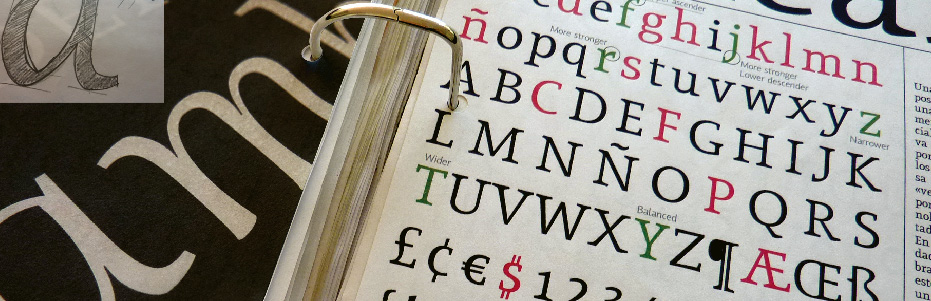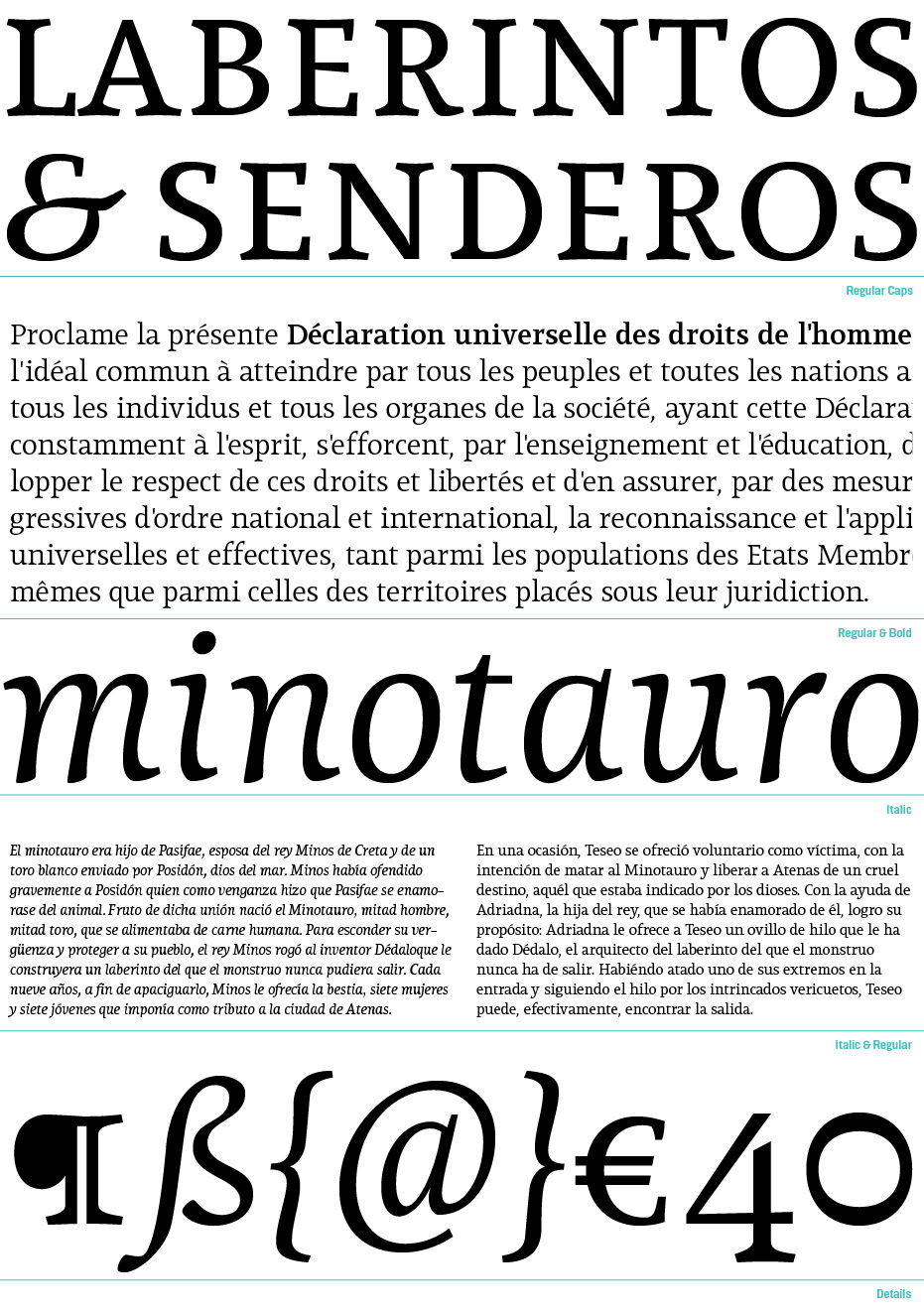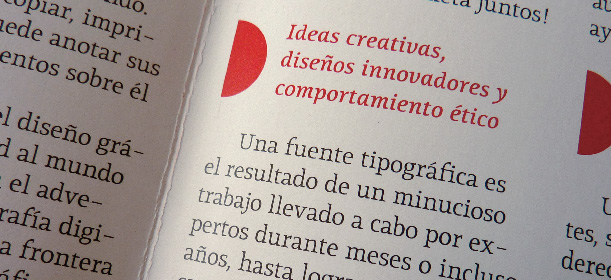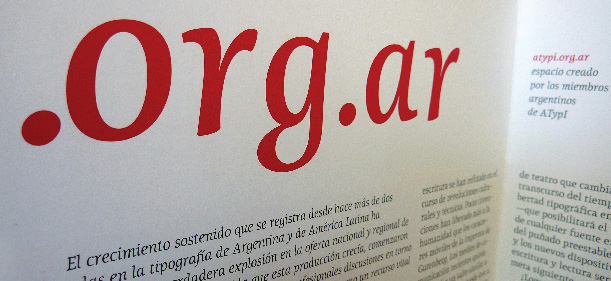
Lineare Serif
DESIGNER Eduardo Rodríguez Tunni
RELEASE 1.1 2007
STYLES 5 STYLES: book, book SC, italic, bold and bold italic.
Lineare Serif is an attempt at the hard job of text typographies, seeking new ways that will provide readers with some pleasure and some rest while they walk along each line, creating a space where there is harmony between the printed form and man.
Asymmetric serifs both in their height and width, medium contrast in the stroke and balanced upward and downward movements, make “Lineare Serif” a typography featuring attitude and aptitude for editorial purposes.